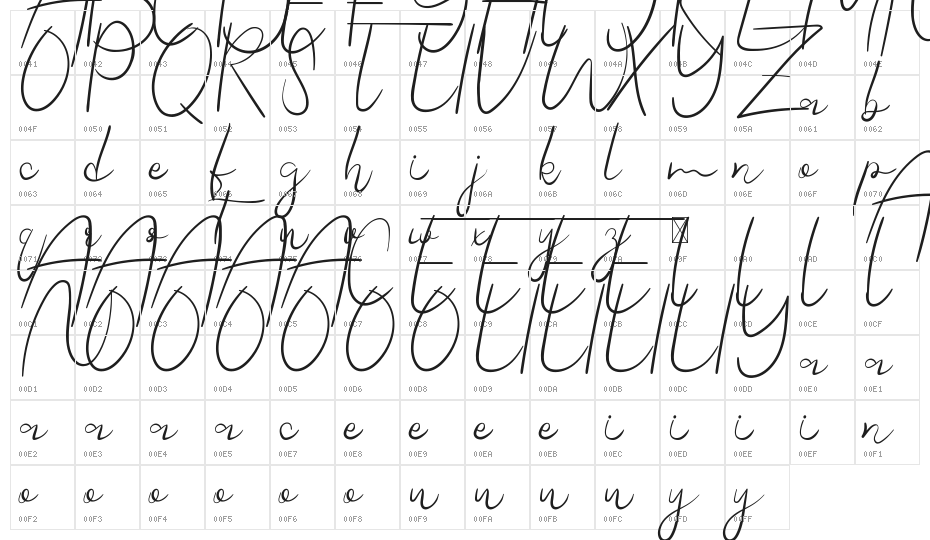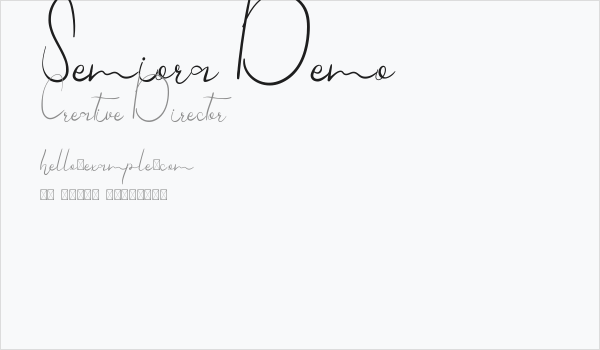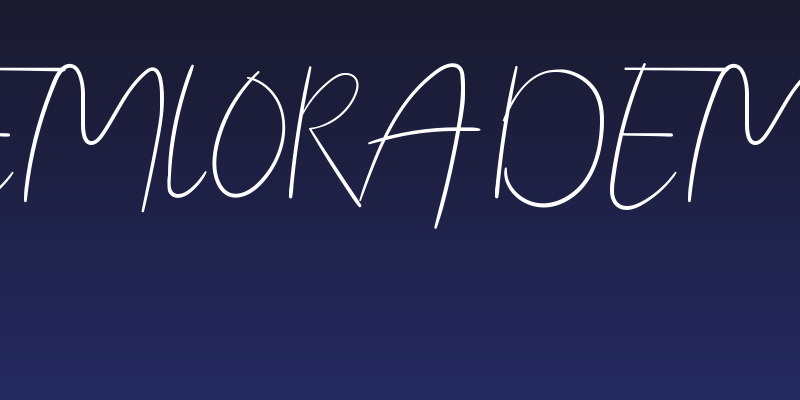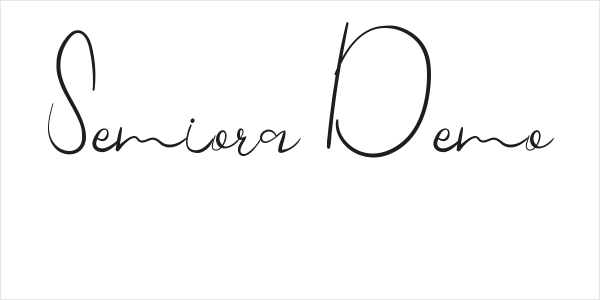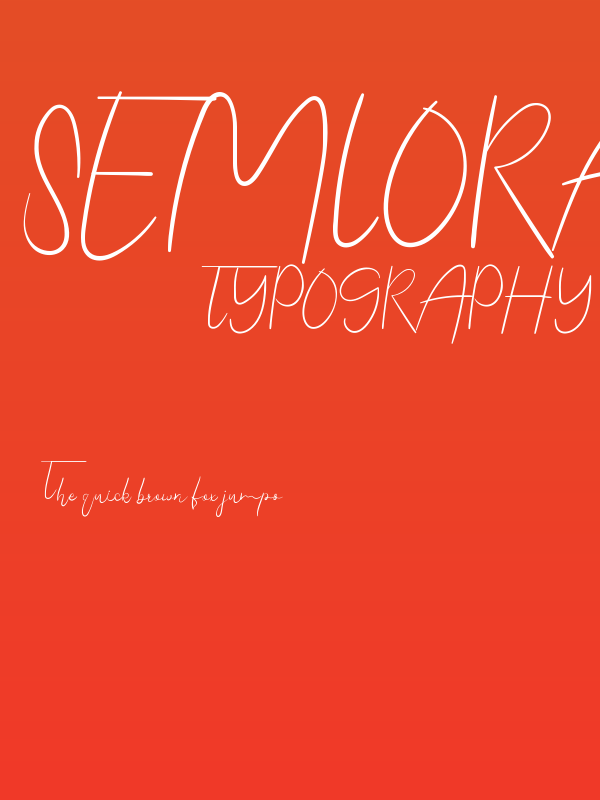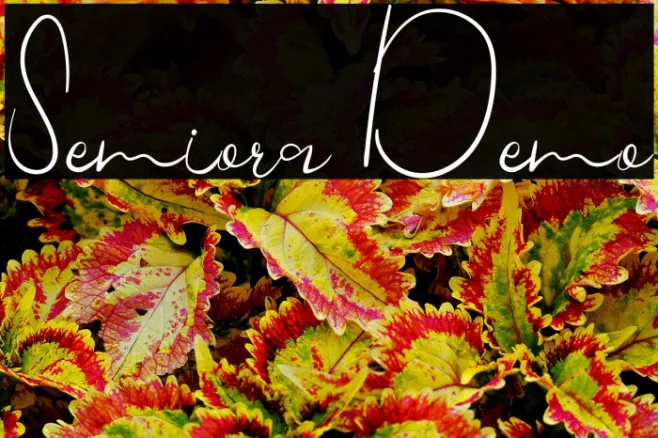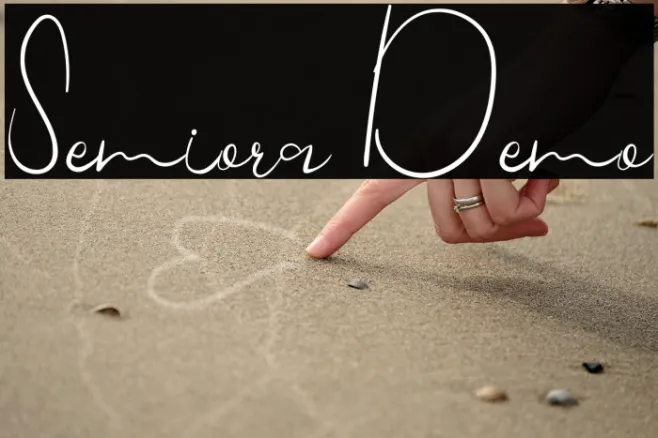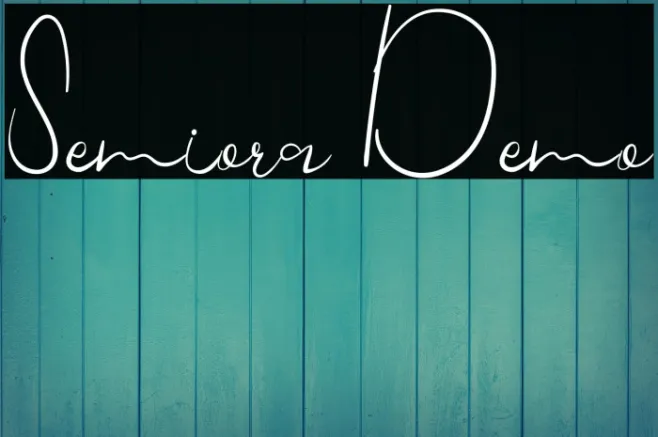
Semiora Demo Font
Semiora Demo Description
This font features a unique blend of elegance and modernity, characterized by its flowing, cursive style. The uppercase letters are tall and slender, with a slight slant that adds a dynamic feel. The lowercase letters are more fluid, with graceful loops and curves that enhance its handwritten appearance. The numbers and special characters maintain this cohesive style, ensuring versatility across various applications. The overall design is airy and light, making it suitable for projects that require a touch of sophistication and creativity.
| Proposed Projects | Ideal for wedding invitations, greeting cards, personal branding, and artistic projects that require a personal touch. |